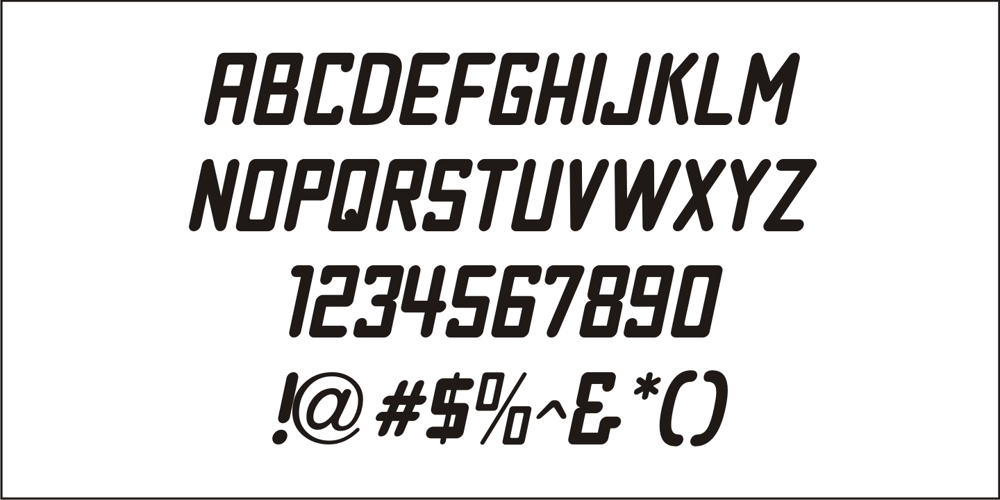
Pen Nib Square JNL Font Family was designed by Jeff Levine and published by Jeff Levine. Pen Nib Square JNL contains 2 styles and family package options. The idea started with the 1934 sheet music of “Mazurka Amabile”. Its hand drawn title had most of the letters rendered in a rectangular shape [‘square’ in the sign trade] that featured rounded corners and terminals made by the shape of the lettering pen nib. A few letters were rounder in design than others, so those were scrapped in favor of a more consistent character shape throughout the font. Pen Nib Square JNL is available in both regular and oblique versions.